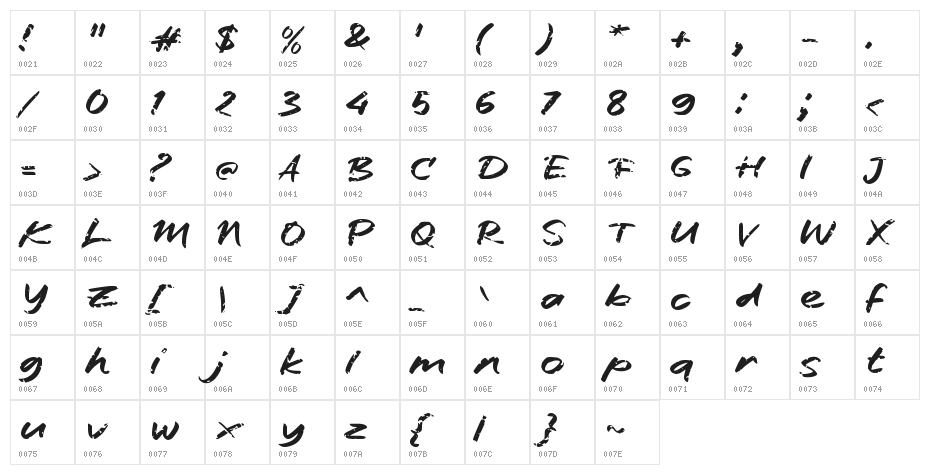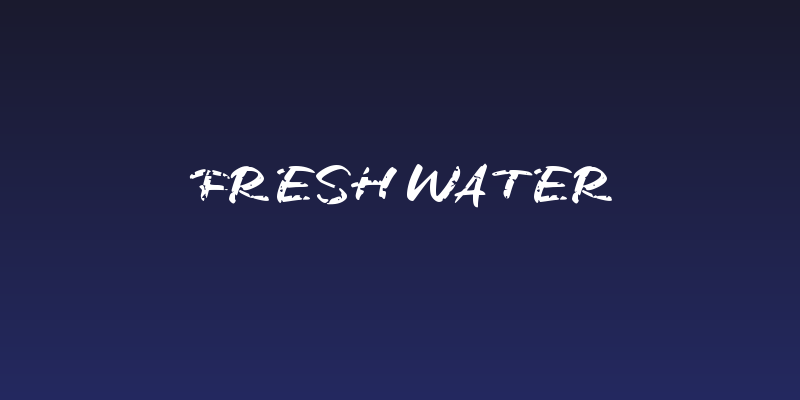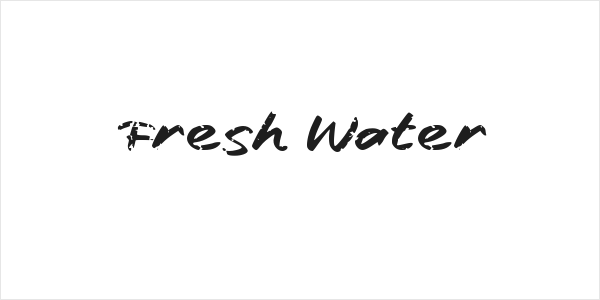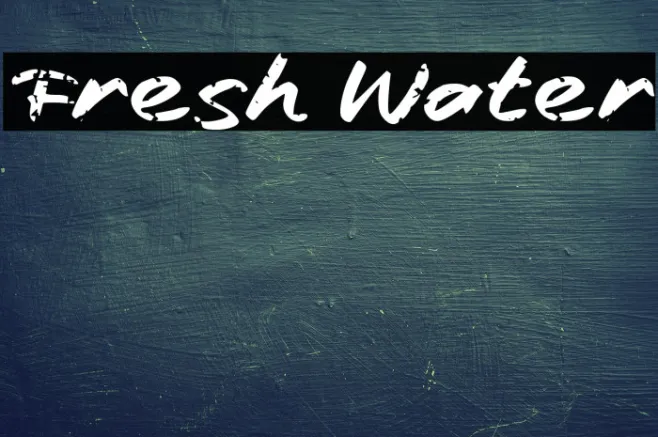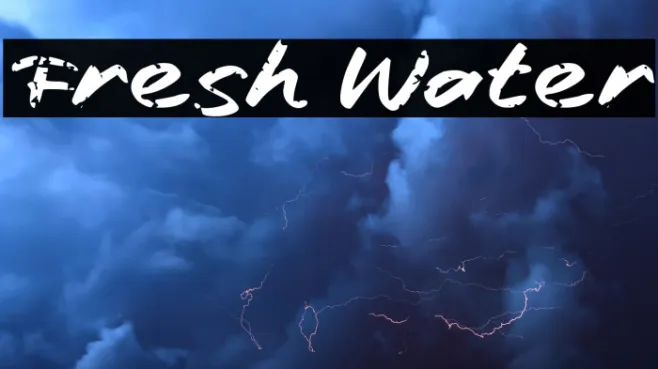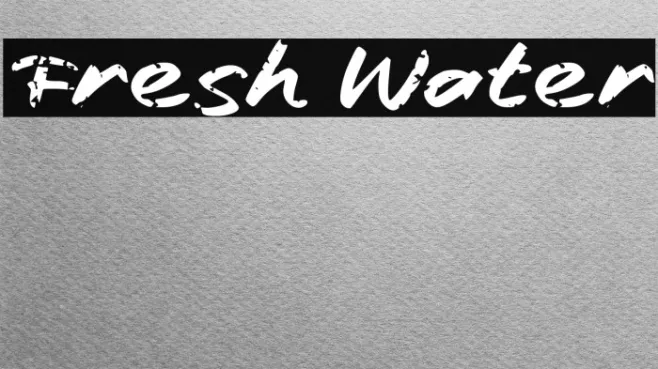
Fresh Water Font
Fresh Water Description
This font features a bold and dynamic brushstroke style, giving it a raw and energetic appearance. The characters are designed with irregular edges and varying thickness, creating a sense of movement and spontaneity. The uppercase and lowercase letters maintain a consistent style, while the numerals and special characters complement the overall aesthetic. This font is ideal for projects that require a touch of creativity and expressiveness, such as artistic posters, album covers, or branding materials that aim to stand out with a unique flair.
| Proposed Projects | Artistic posters, album covers, branding materials, creative advertisements. |